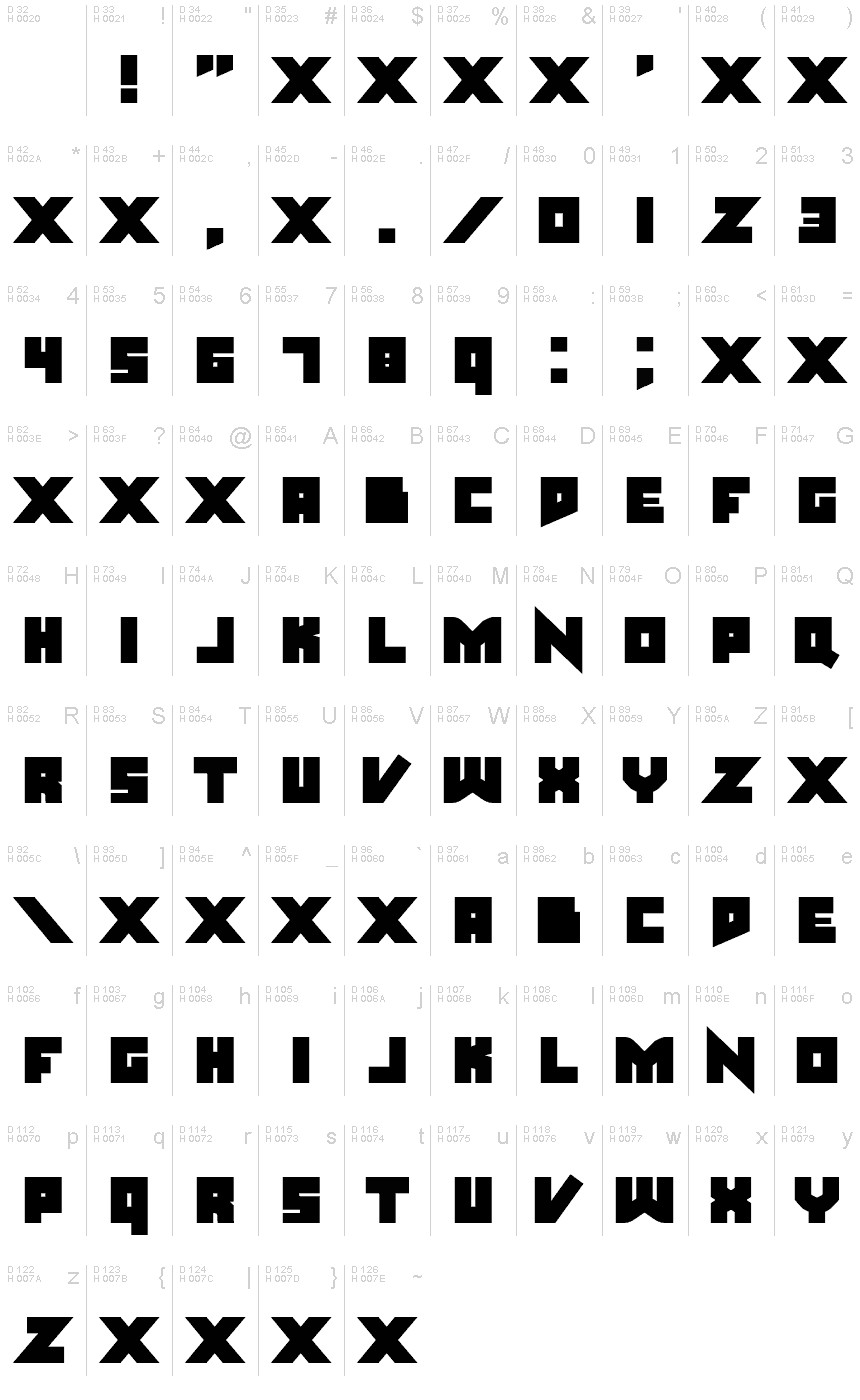
nsteel
Nsteel is a bold, expanded display font that exudes a distinct techno aesthetic. Designed by Hati, this striking typeface features sleek, angular letterforms with sharp edges and a solid, metallic appearance. The expanded width lends it an imposing, sturdy presence, making it well-suited for impactful headings, logos, and branding applications that require a futuristic, industrialized feel.
Nsteel's bold weight and distinctive style make it an excellent choice for projects that demand attention, from sci-fi-inspired designs to high-tech product packaging and cutting-edge digital interfaces.
This font is suitable for display or headline purposes.